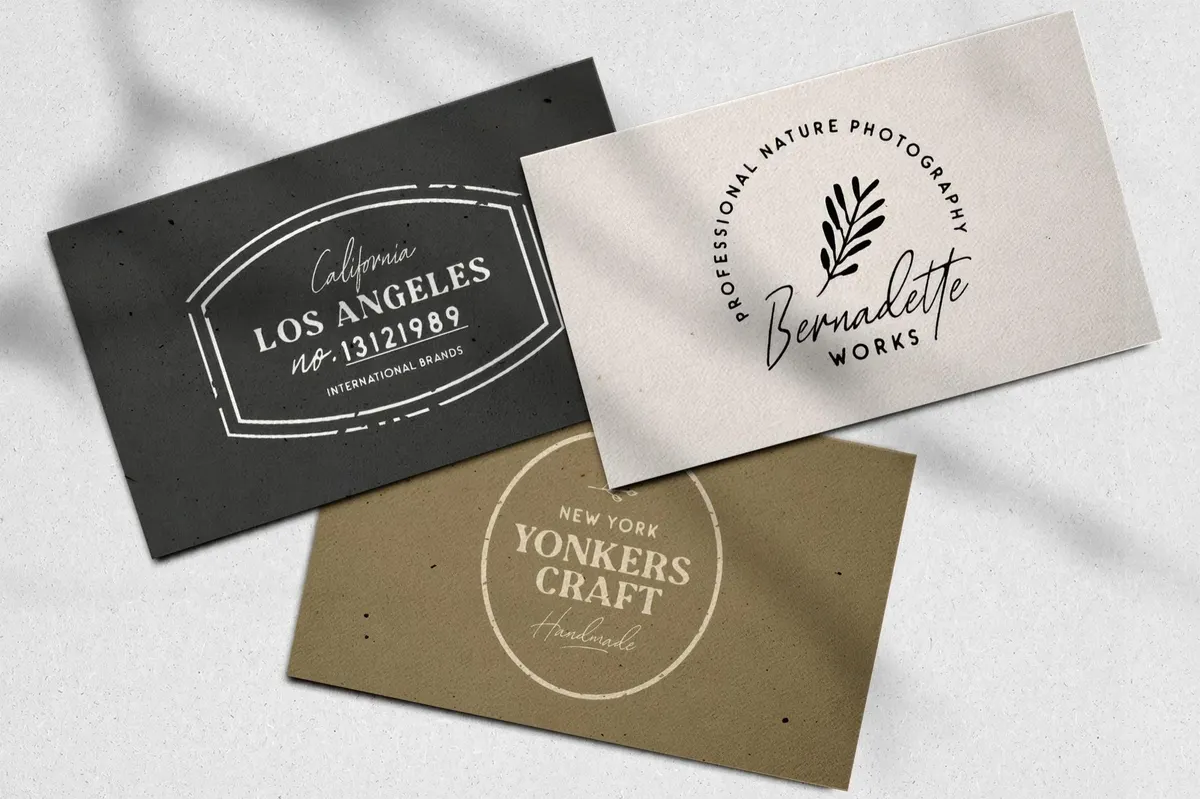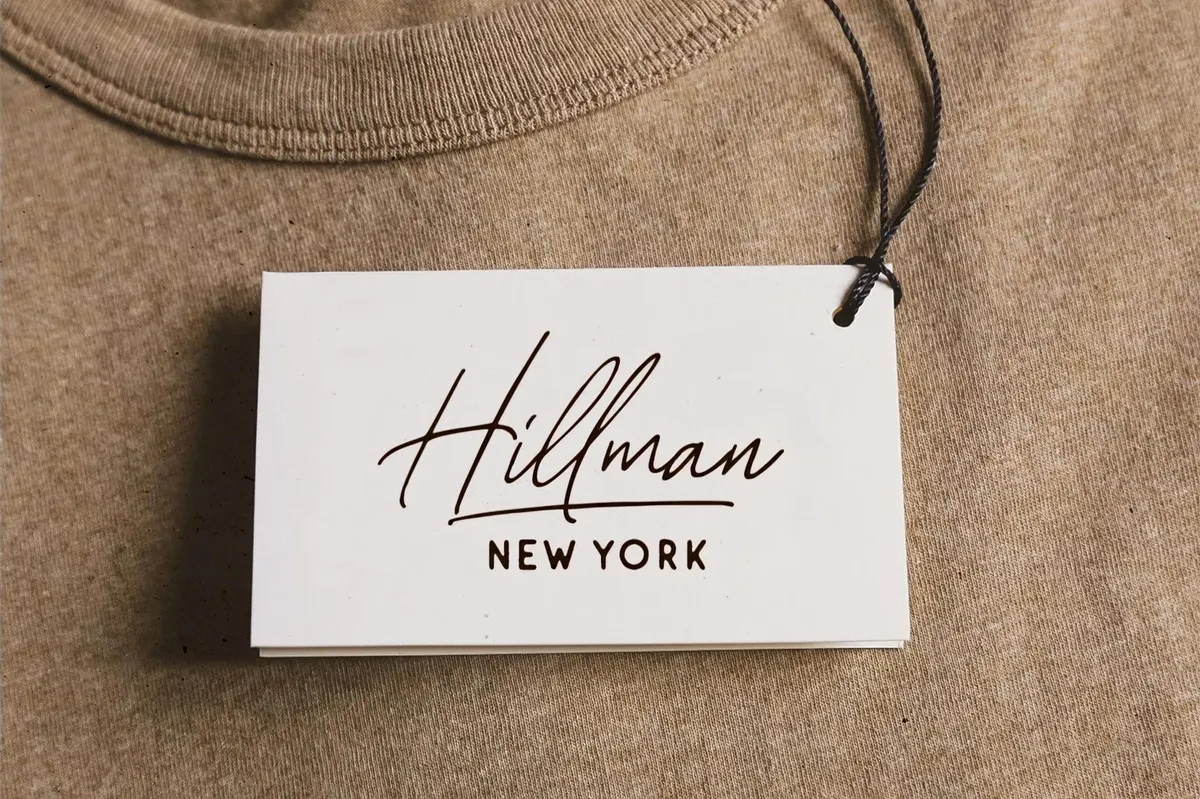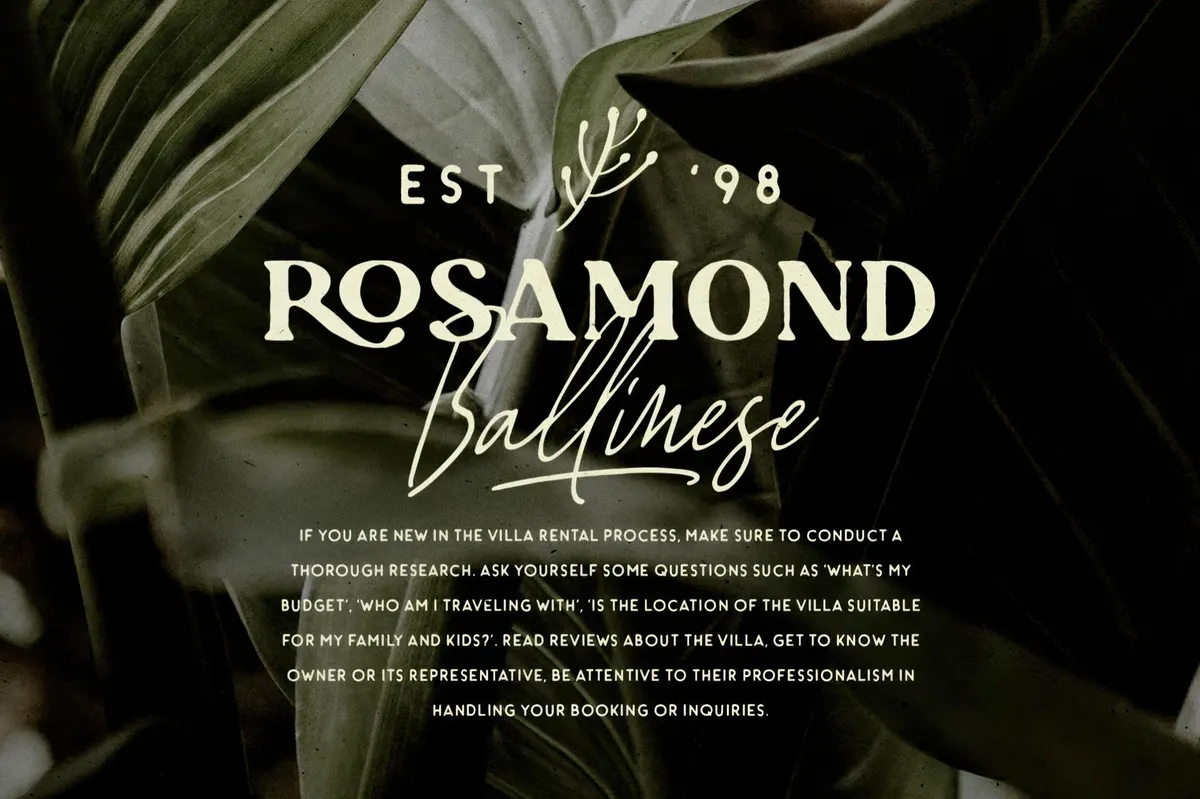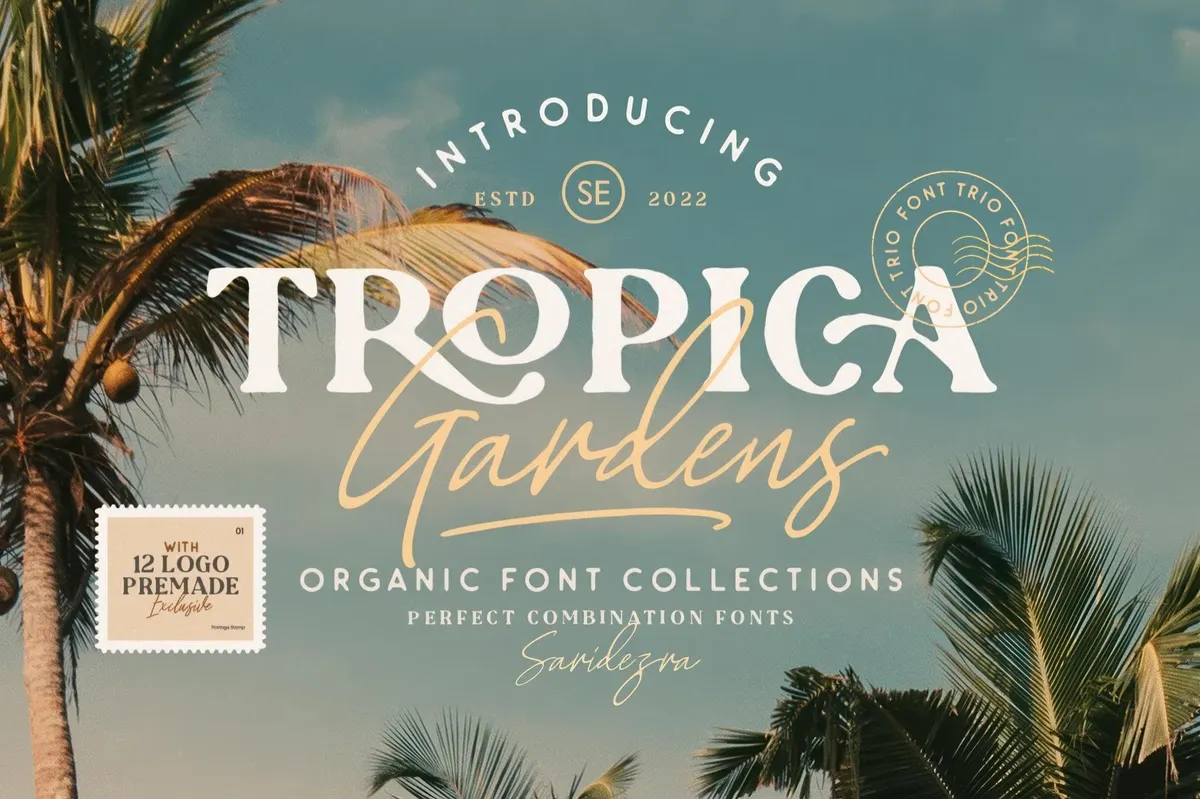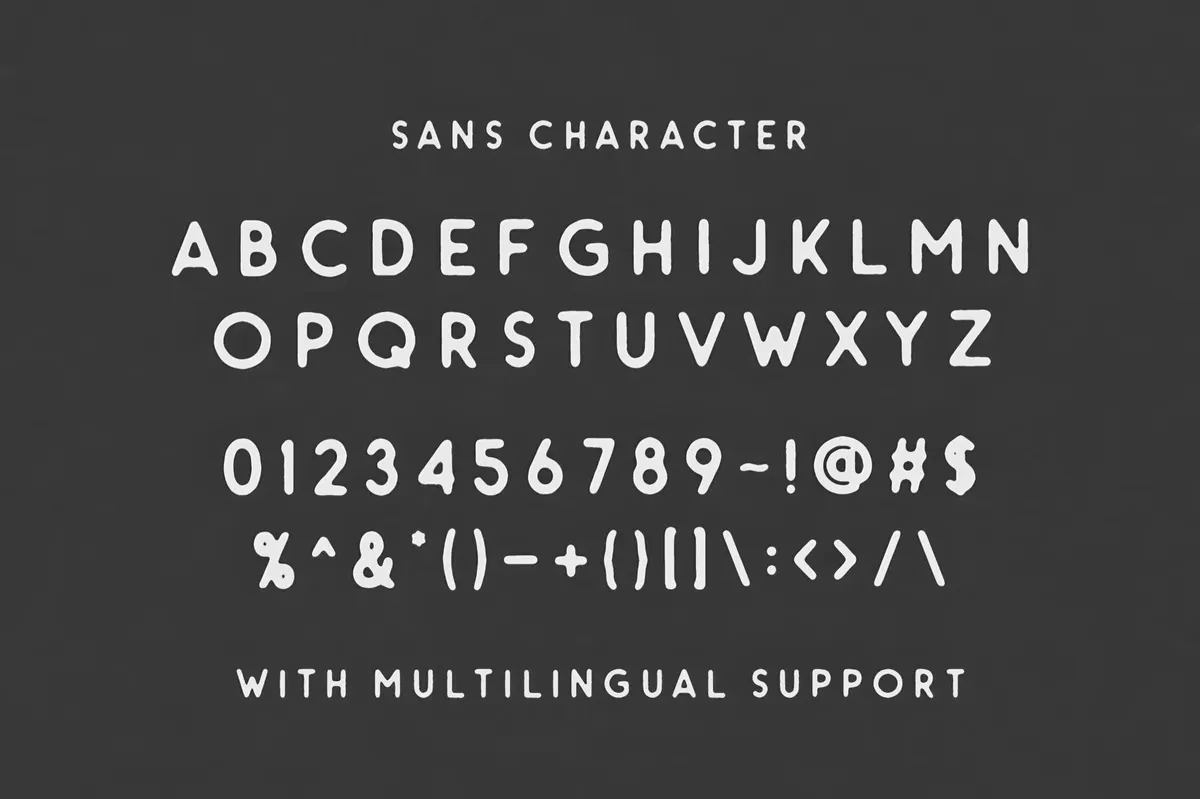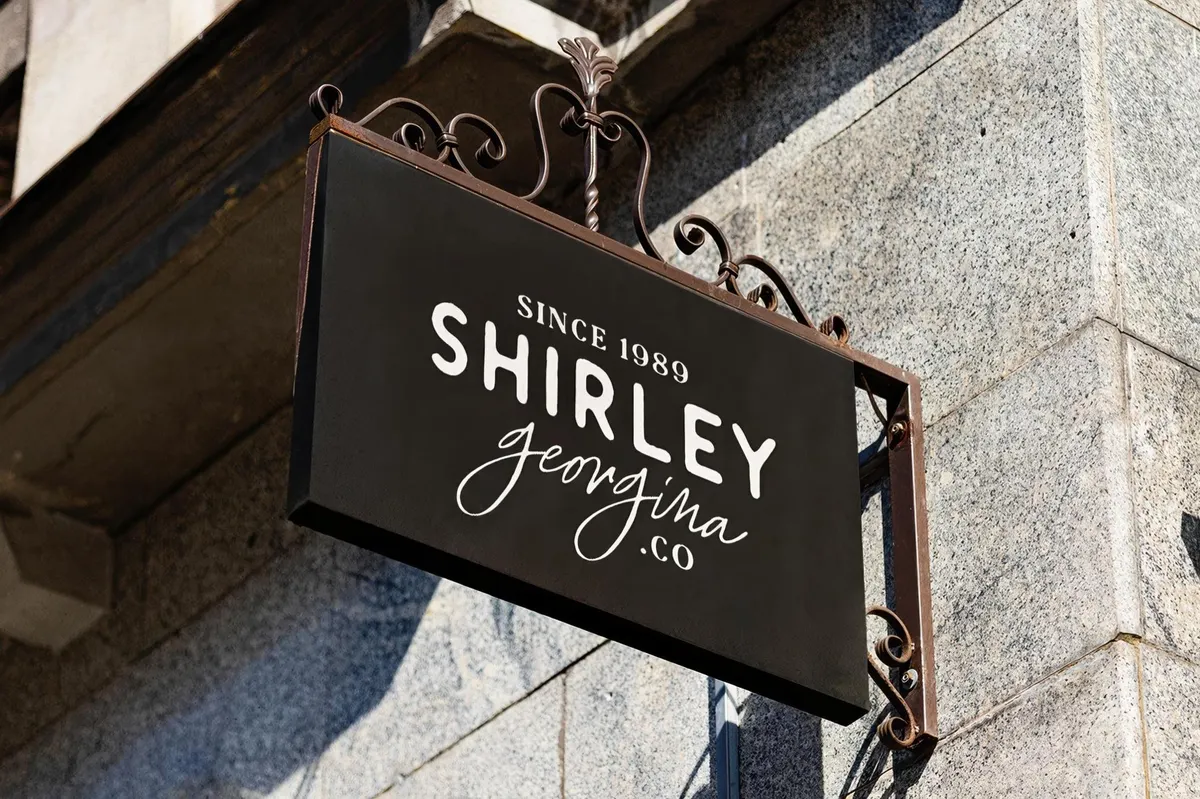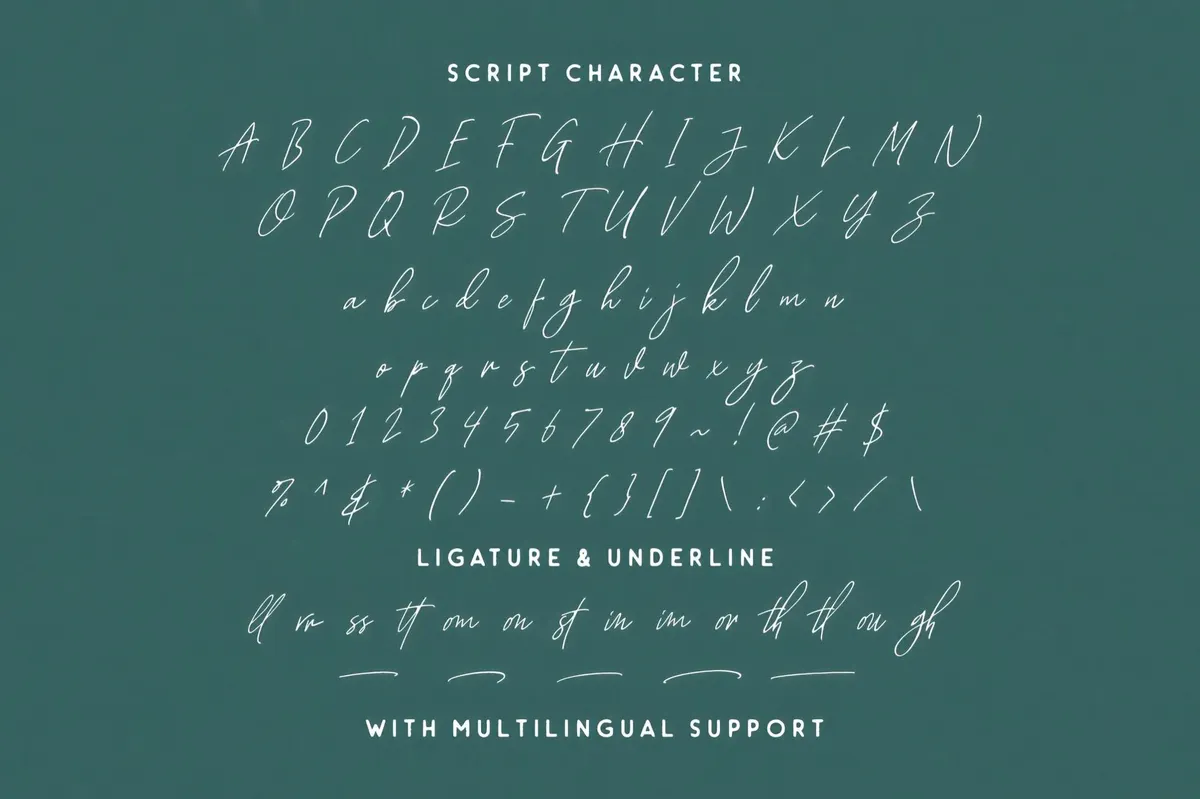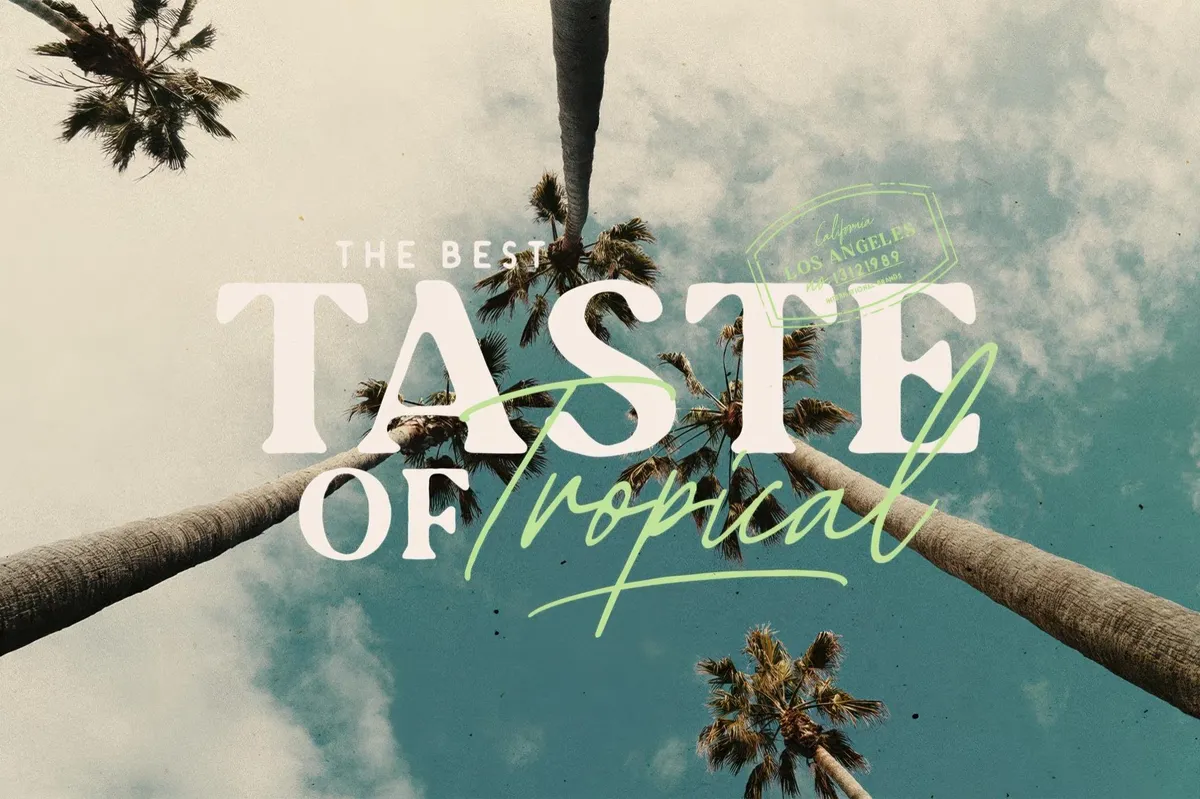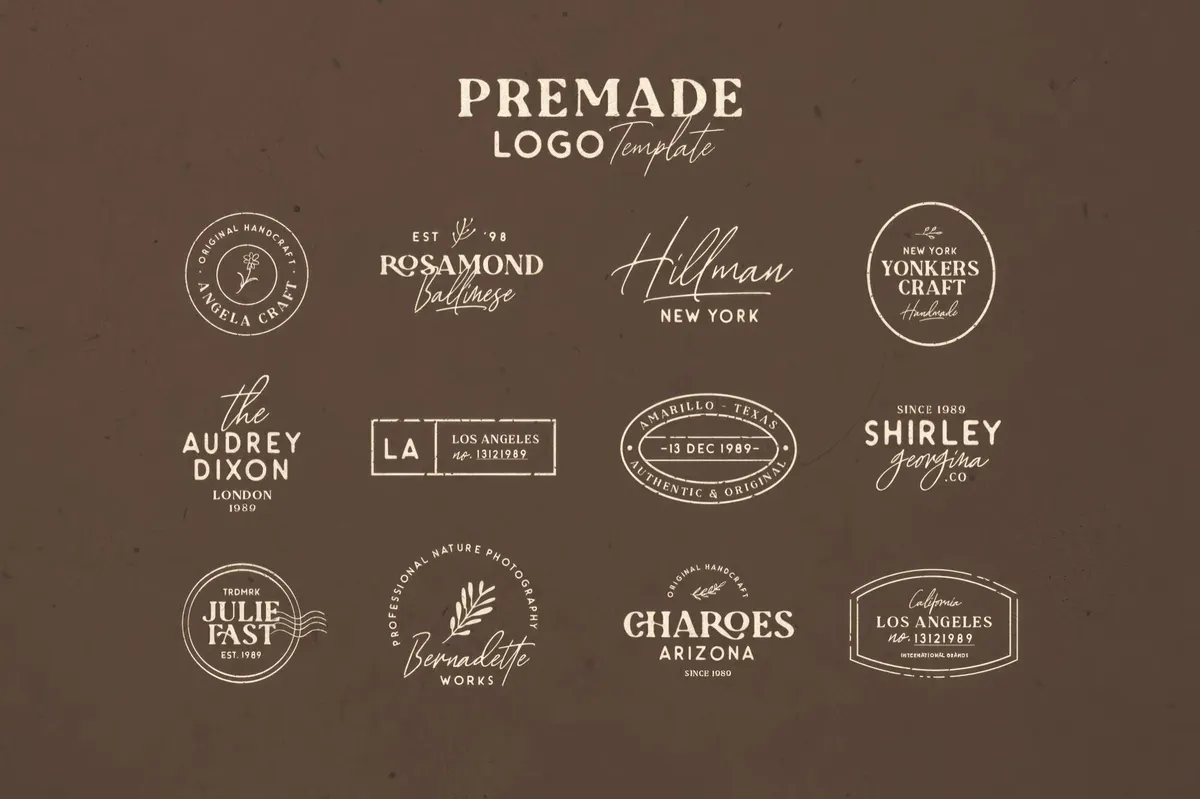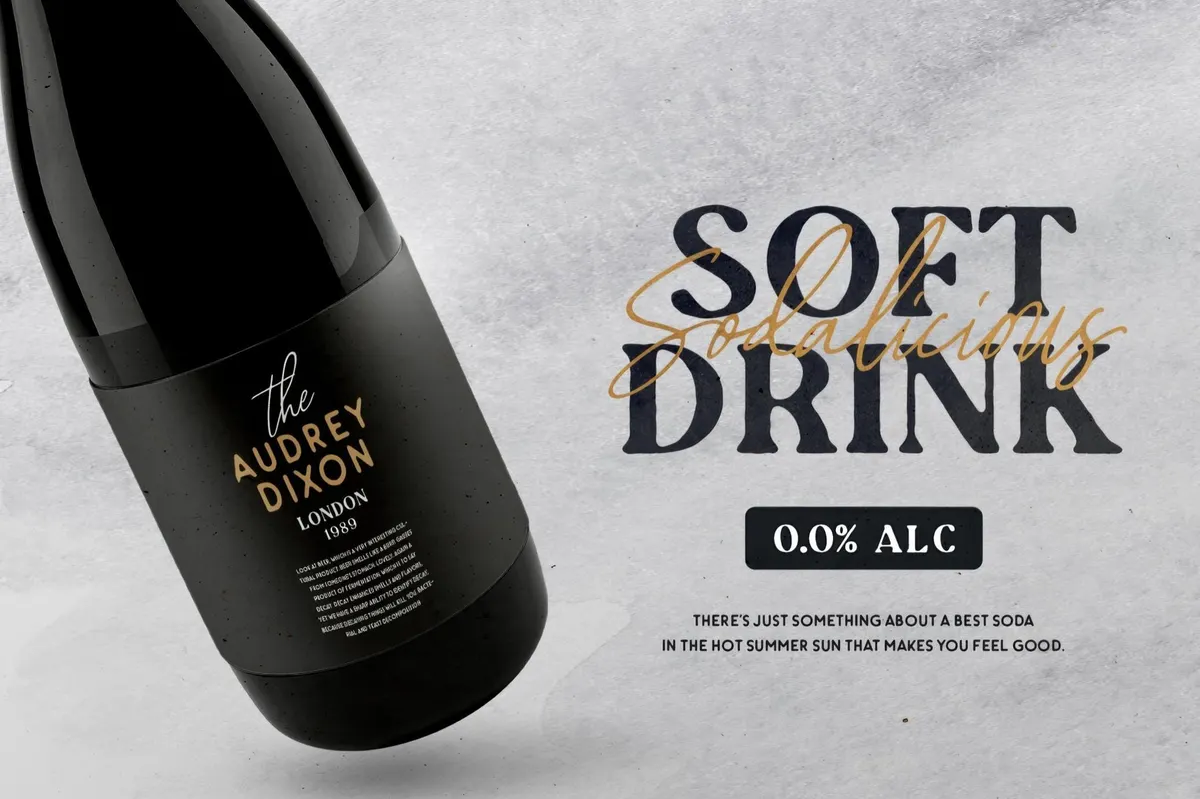
Tropica Gardens — Font Trio
Tropica Gardens is a font trio designed for effortless elegance. This curated set brings together serif, sans, and script, balancing structure with free-flowing charm. The all-caps serif holds its ground in headlines and logos, the all-caps sans keep things clean in body text, and the script with an extensive set of glyphs and ligatures adds a handwritten warmth to signatures, quotes, and packaging.
No guesswork is needed — each typeface is crafted to complement the others, making it an essential toolkit for branding, packaging, and editorial design. Tropica Gardens covers multiple languages, making it adaptable to global audiences. The pack also includes 12 editable logo templates to jumpstart your projects.